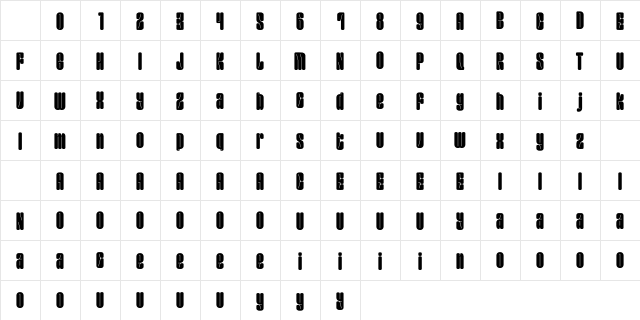
Complete Smokey Brown DEMO Regular glyph index. Displaying only characters natively supported by Smokey Brown DEMO Regular font.
Smokey Brown DEMO is a composed and adaptable typeface that performs quietly and consistently across a wide range of design contexts.